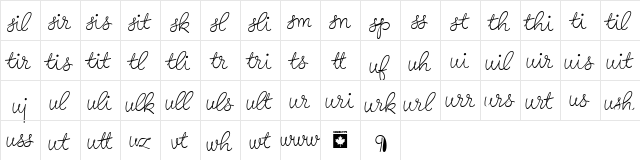
Birthday Ligatures Five Regular
Design Context for Birthday Ligatures Five Typeface
Birthday Ligatures Five is a composed and adaptable typeface that performs quietly and consistently across a wide range of design contexts.
Pro Tip: Use Birthday Ligatures Five in both headline and body roles to test its range before committing to a single application.